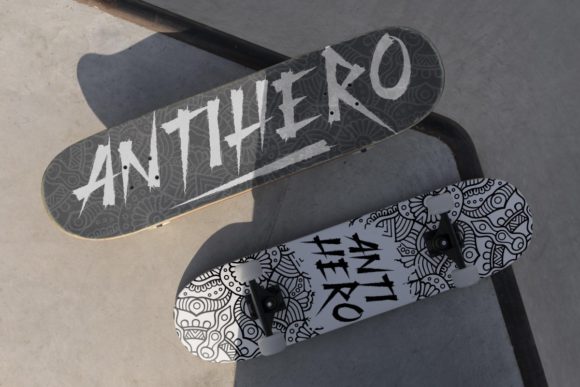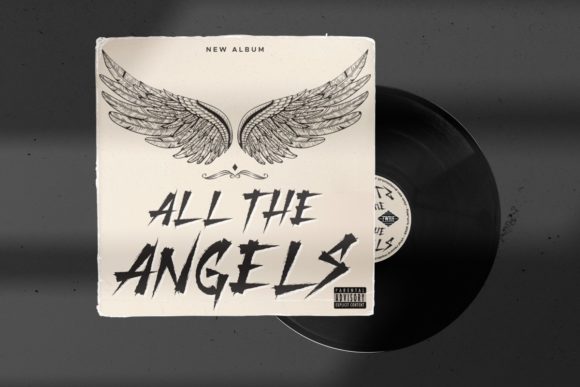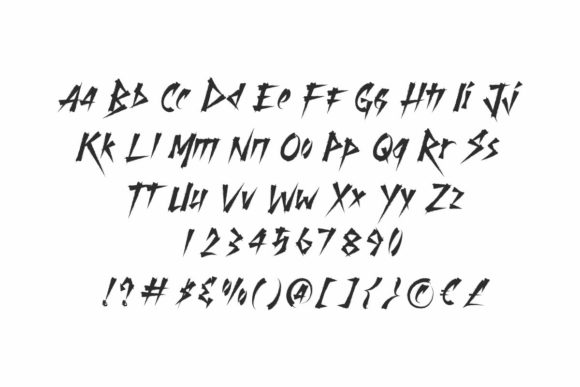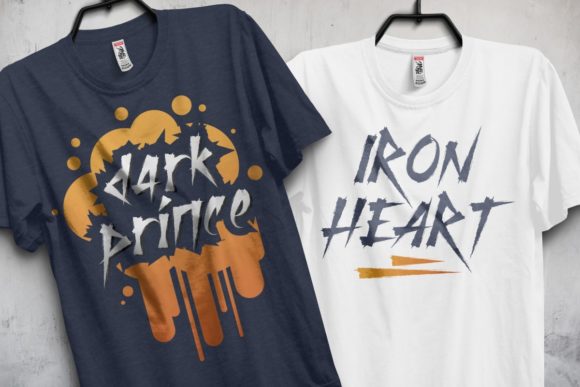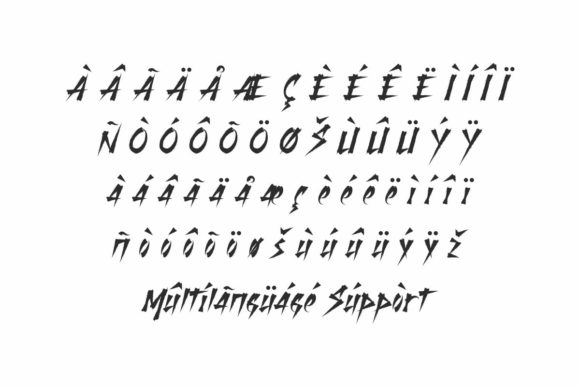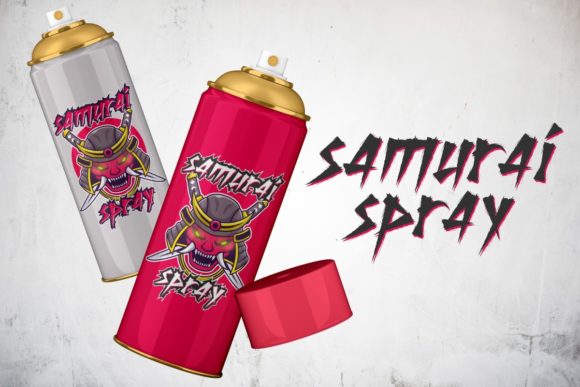
Unleash Your Creativity with Dark Falcon Font: The Ultimate Urban Display Font
Are you a designer, crafter, or DIY enthusiast looking for a font that can elevate your creative projects? Look no further than the Dark Falcon Font, a cool, brushed, and urban styled display font that’s perfect for a wide range of crafting ideas. In this article, we’ll explore the features and benefits of Dark Falcon Font, and show you how it can take your designs to the next level.
What is Dark Falcon Font?
Dark Falcon Font is a unique and stylish display font that’s designed to add an urban edge to your designs. With its brushed texture and bold lines, this font is perfect for creating eye-catching headlines, titles, and labels. Whether you’re working on a card, branding project, or packaging design, Dark Falcon Font is sure to make a statement.
Key Features of Dark Falcon Font
- Urban Style: Dark Falcon Font has a distinctly urban feel, with a bold and edgy aesthetic that’s perfect for designers who want to add a touch of grit to their designs.
- Brushed Texture: The font’s brushed texture gives it a rough, handmade look that’s perfect for creating unique and eye-catching designs.
- Display Font: Dark Falcon Font is designed specifically for display use, making it perfect for headlines, titles, and other large-format text.
- Versatile: This font can be used for a wide range of projects, from cards and invitations to branding, labels, and more.
Benefits of Using Dark Falcon Font
So why choose Dark Falcon Font for your next project? Here are just a few benefits of using this amazing font:
- Adds an Urban Edge: Dark Falcon Font can add a cool, urban edge to your designs, making them stand out from the crowd.
- Increases Readability: The font’s bold lines and clear typography make it easy to read, even at large sizes.
- Enhances Creativity: With Dark Falcon Font, you can create unique and eye-catching designs that showcase your creativity and style.
- Saves Time: This font is easy to use and customize, saving you time and effort on your design projects.
How to Use Dark Falcon Font
Using Dark Falcon Font is easy! Here are a few tips to get you started:
- Pair with Other Fonts: Dark Falcon Font pairs well with other fonts, so feel free to experiment with different combinations to create a unique look.
- Experiment with Colors: The font’s brushed texture looks great in a range of colors, from bold and bright to muted and subtle.
- Use for Headlines and Titles: Dark Falcon Font is perfect for headlines and titles, but you can also use it for body text and other design elements.
Who Can Benefit from Dark Falcon Font?
Dark Falcon Font is perfect for a wide range of designers, crafters, and DIY enthusiasts, including:
- Graphic Designers: Add an urban edge to your branding, packaging, and advertising designs.
- Crafters: Use Dark Falcon Font to create unique and eye-catching cards, invitations, and other handmade projects.
- DIY Enthusiasts: Add a professional touch to your DIY projects, from labels and signs to posters and flyers.
Dark Falcon Font is a powerful and versatile display font that’s perfect for designers, crafters, and DIY enthusiasts who want to add an urban edge to their designs. With its brushed texture, bold lines, and clear typography, this font is sure to elevate your creative projects and make them stand out from the crowd. So why wait? Download Dark Falcon Font today and start creating amazing designs!